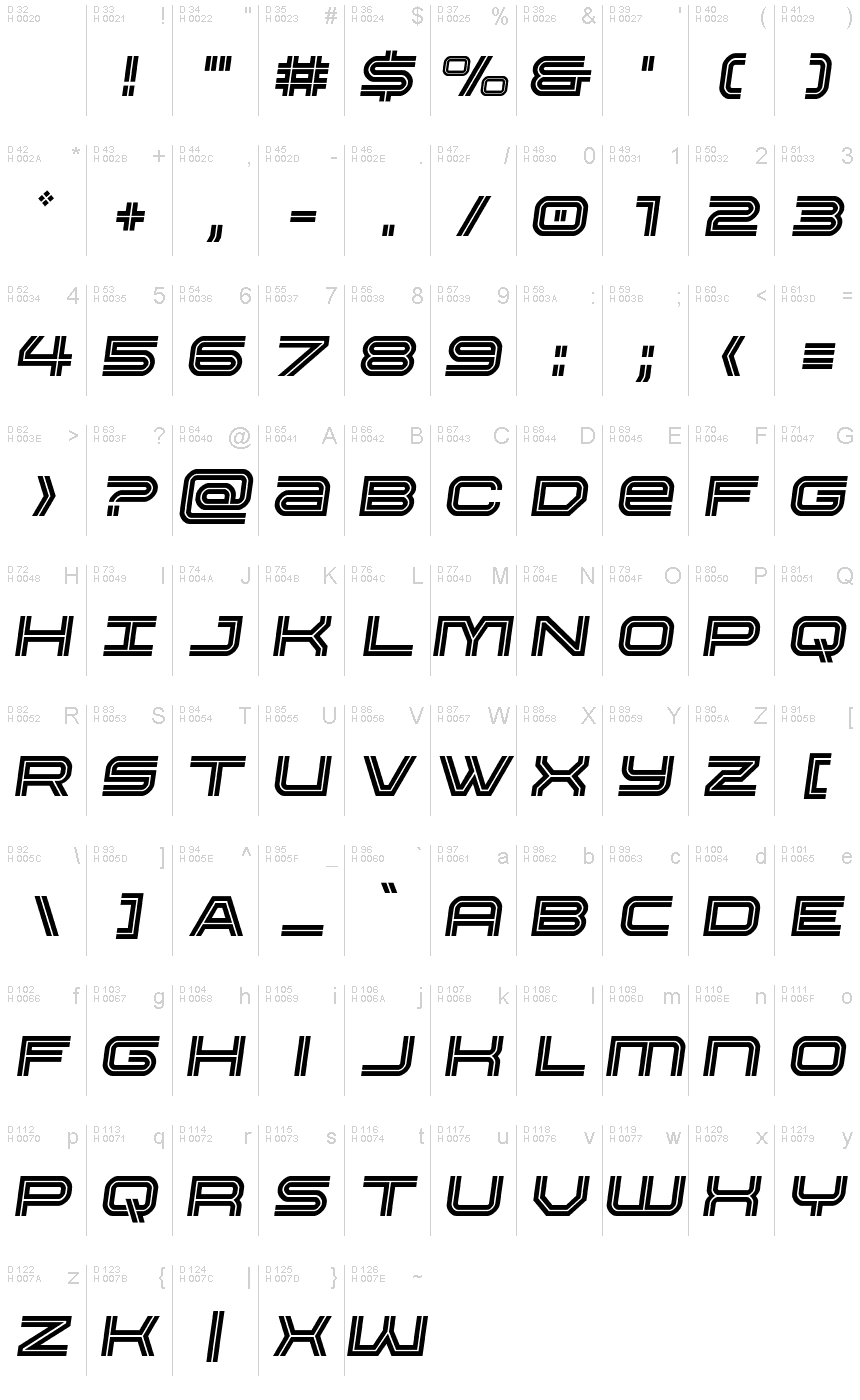
Gran Torino Semi-Italic
Introducing Gran Torino Semi-Italic, a bold and wide techno display font designed by Daniel Zadorozny. Perfect for all your creative projects, this font adds a touch of futuristic and powerful vibes. From logos to posters, Gran Torino Semi-Italic is the ideal choice for giving your work a modern edge.